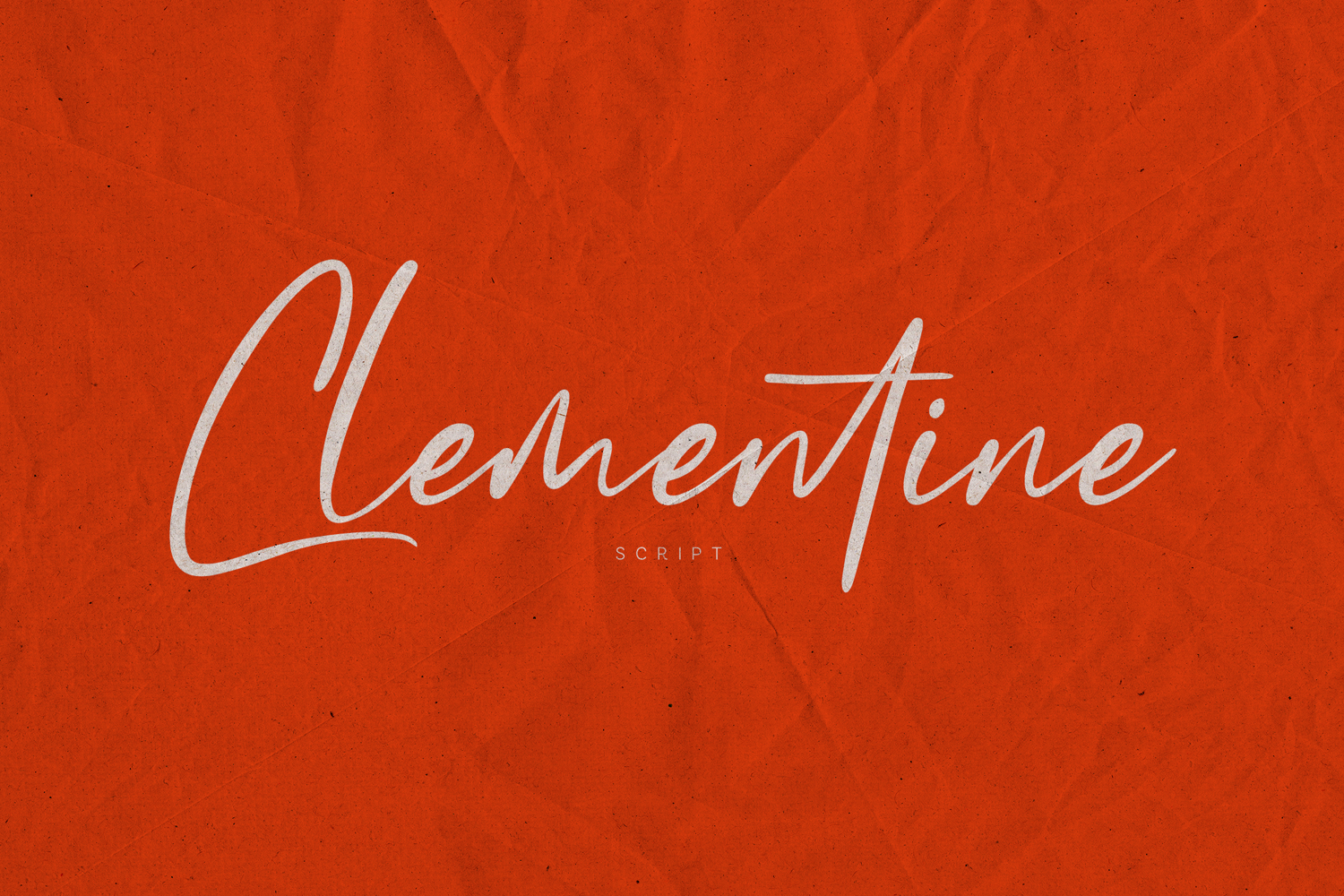
Clementine is a natural handwritten script font with a soft, expressive, and organic feel. Inspired by real pen strokes, it brings warmth and personality to your designs while staying clean and readable. The flowing letterforms make it ideal for quotes, branding, social media, packaging, posters, and projects.
This script font includes uppercase and lowercase characters, numbers, punctuation, and multilingual support, allowing you to create authentic handwritten typography across a wide range of creative uses. Clementine comes in OTF format, ready to use in all major design applications.